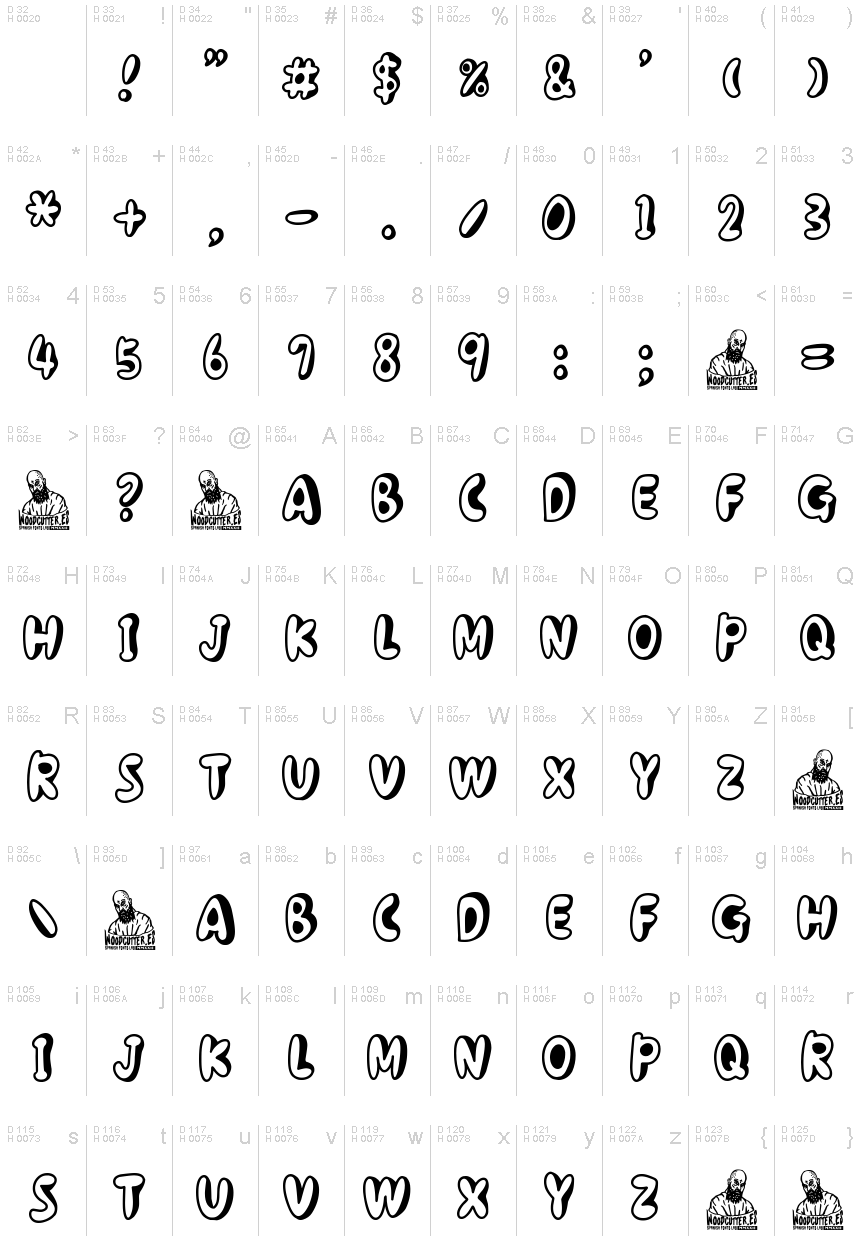
Watermelon
Watermelon by Woodcutter is a bold, playful display font that injects a splash of whimsy into any design project. Its cartoonish style, characterized by rounded, exaggerated characters, exudes an inviting and friendly vibe. The full-bodied strokes and quirky letter shapes make it an eye-catching choice, perfect for projects that aim to capture attention with a touch of fun.
Ideal for children’s book covers, playful branding, or engaging social media graphics, Watermelon's unique aesthetic brings joy and energy to various creative endeavors. Whether you're designing logos or crafting event posters, this font’s distinct style ensures your message stands out with charm and character.